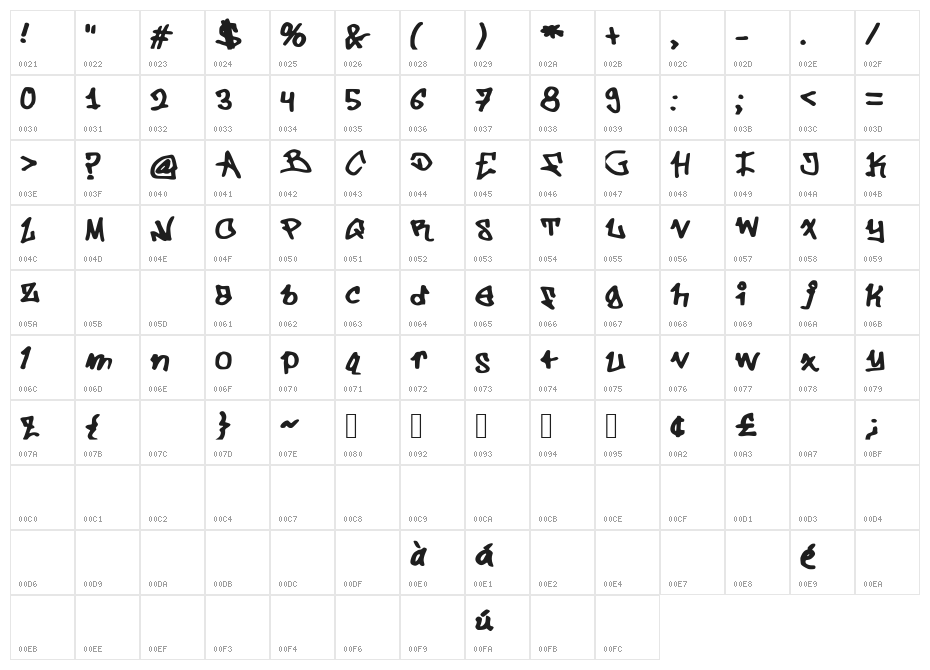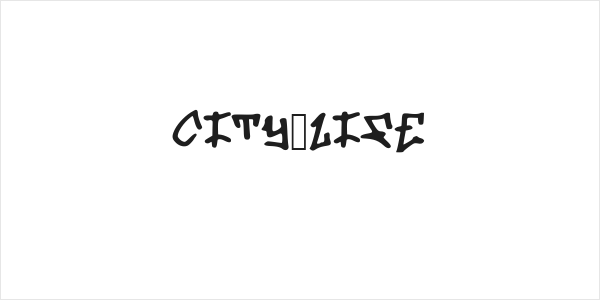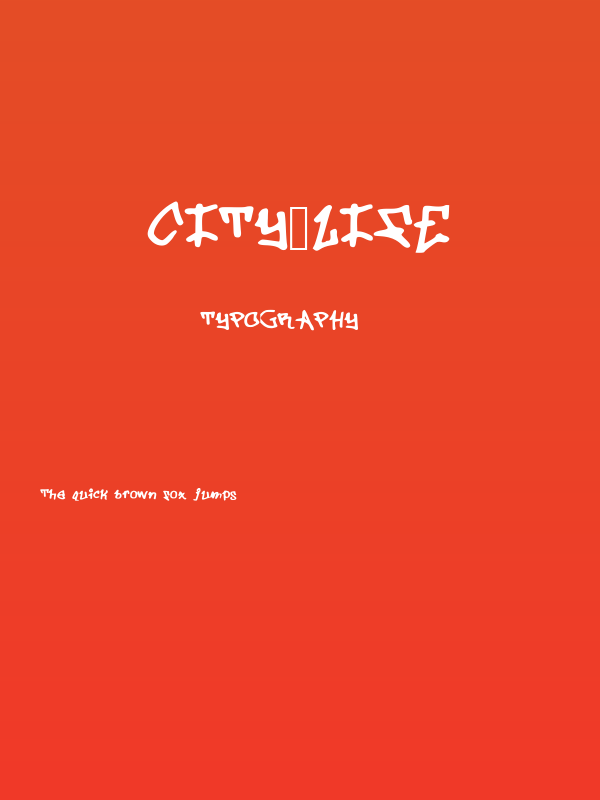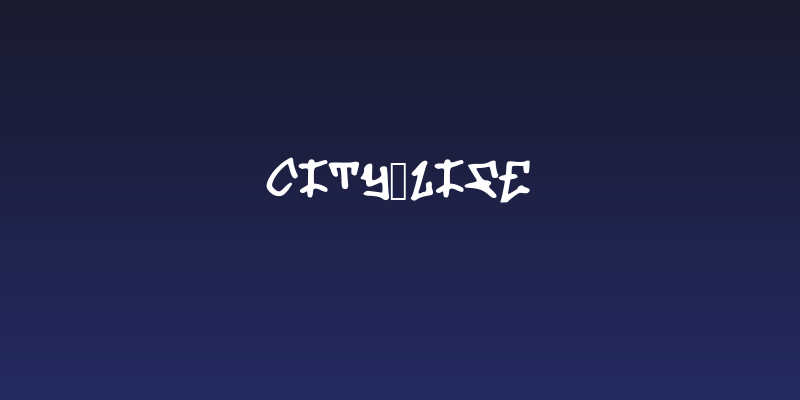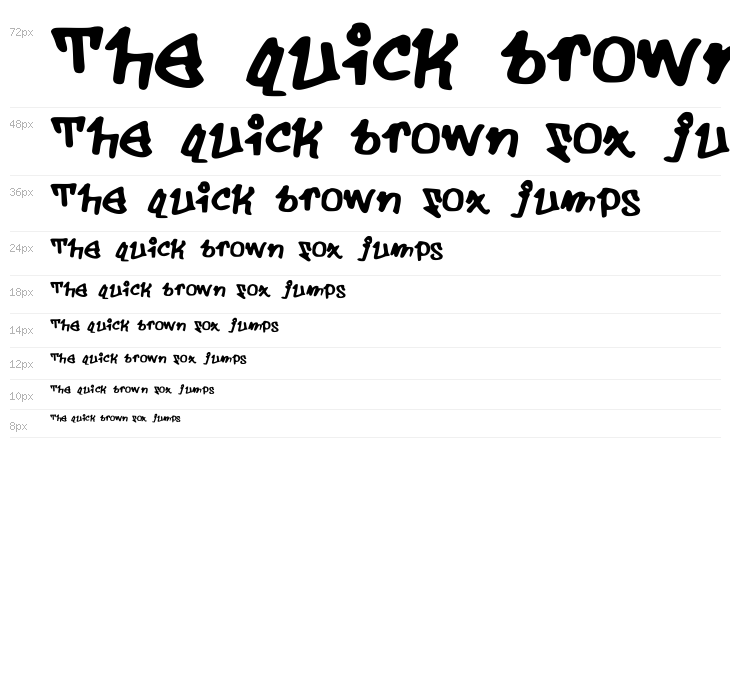
CITY_LIFE Font
CITY_LIFE Description
This font features a bold, graffiti-inspired style with a dynamic and energetic appearance. The characters are irregular and playful, with a hand-drawn quality that gives them a unique and urban feel. The uppercase and lowercase letters maintain a consistent style, with exaggerated curves and angles that create a sense of movement. The numbers and special characters follow the same aesthetic, making the font cohesive and versatile. Its bold strokes and artistic flair make it stand out, perfect for projects that require a strong visual impact.
| Overall Style | Urban, Graffiti, Artistic |
| Proposed Projects | Ideal for street art designs, urban-themed posters, music album covers, and edgy branding projects. |